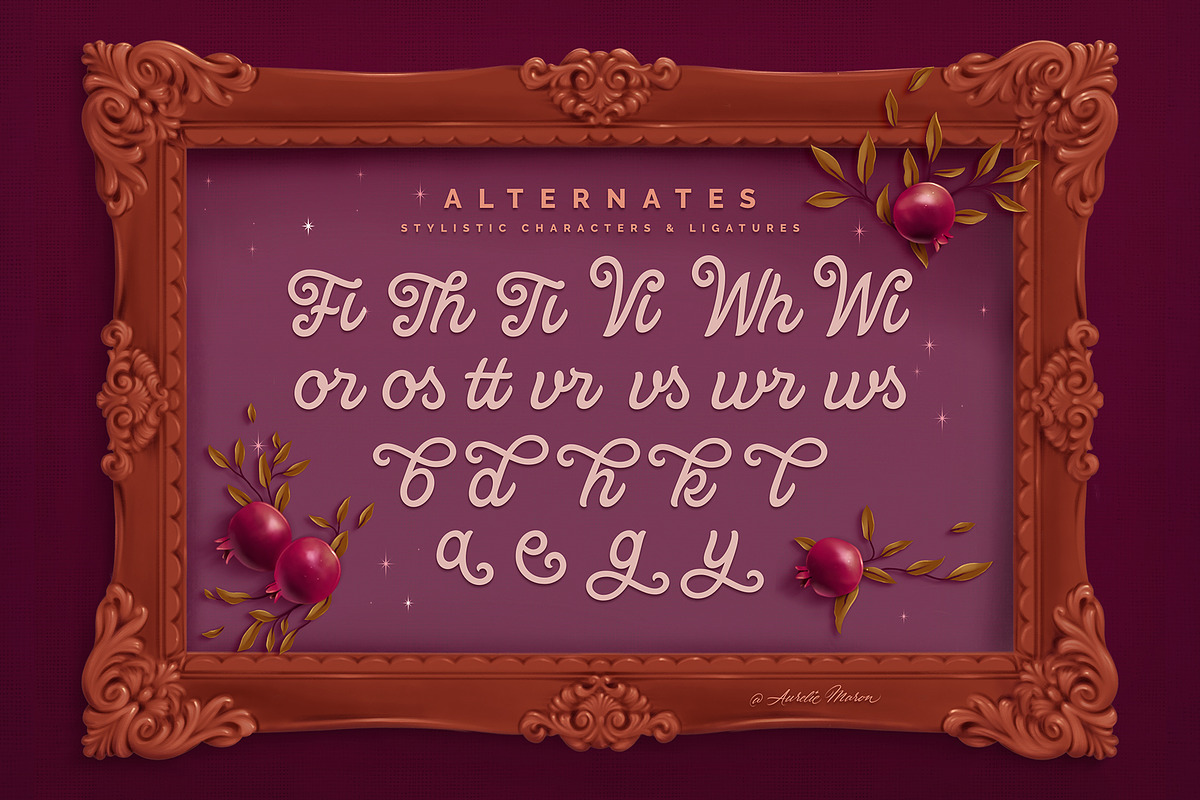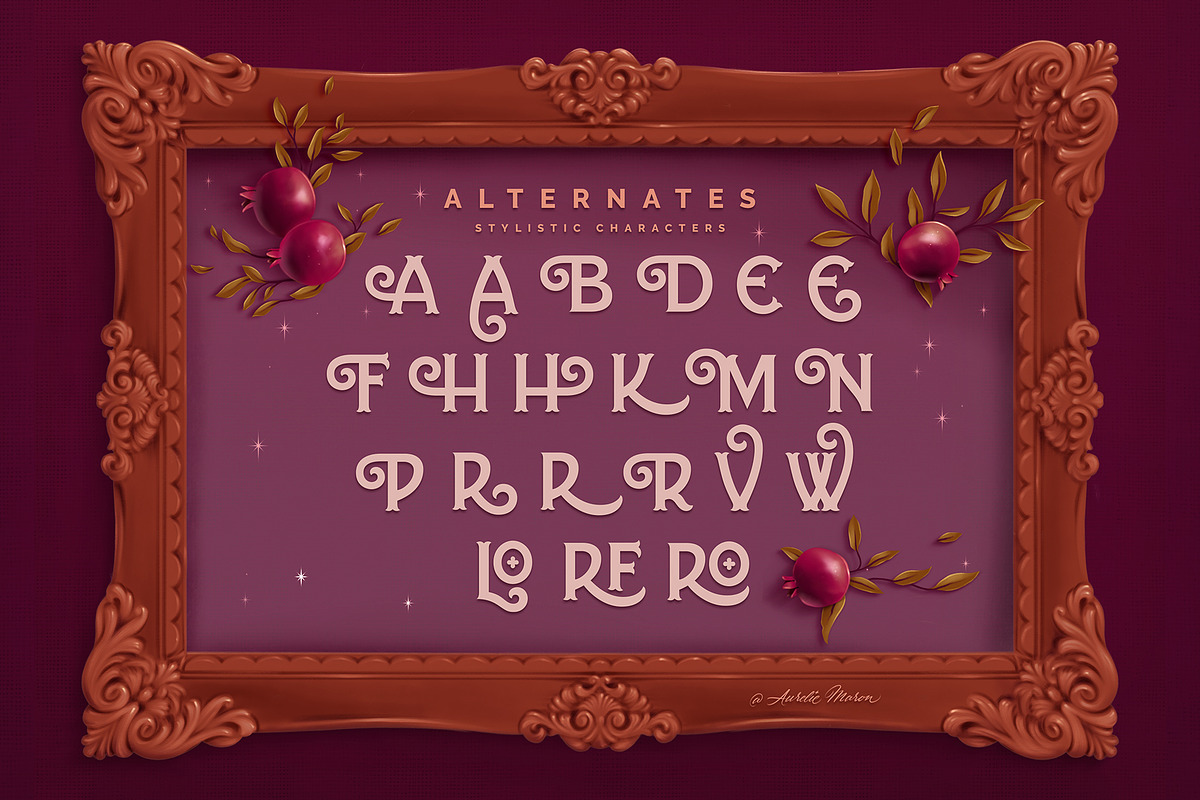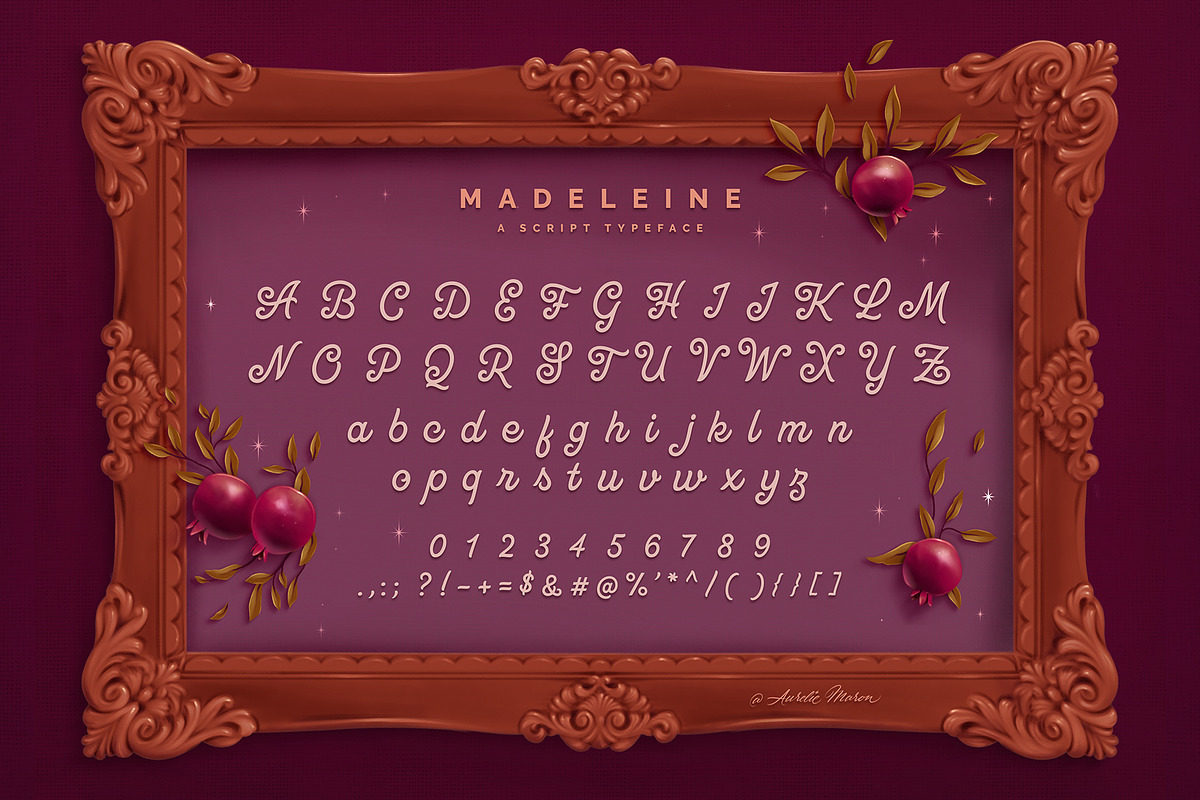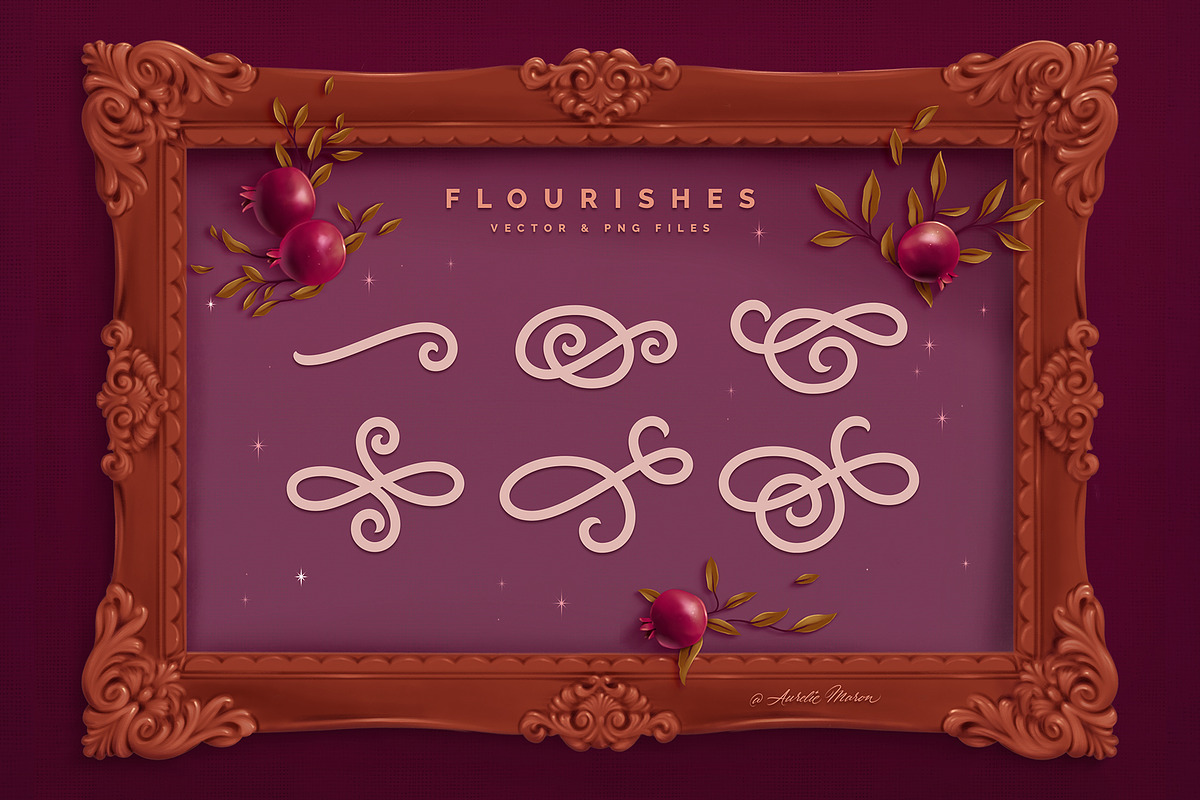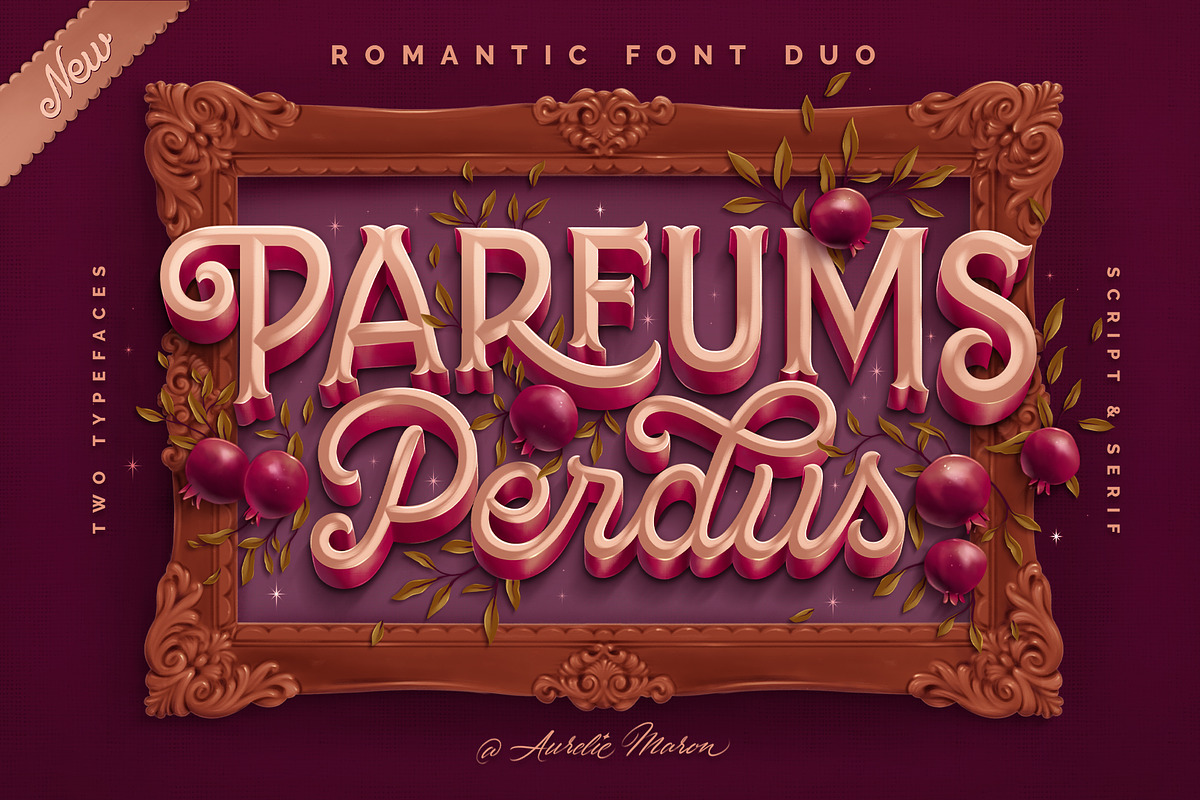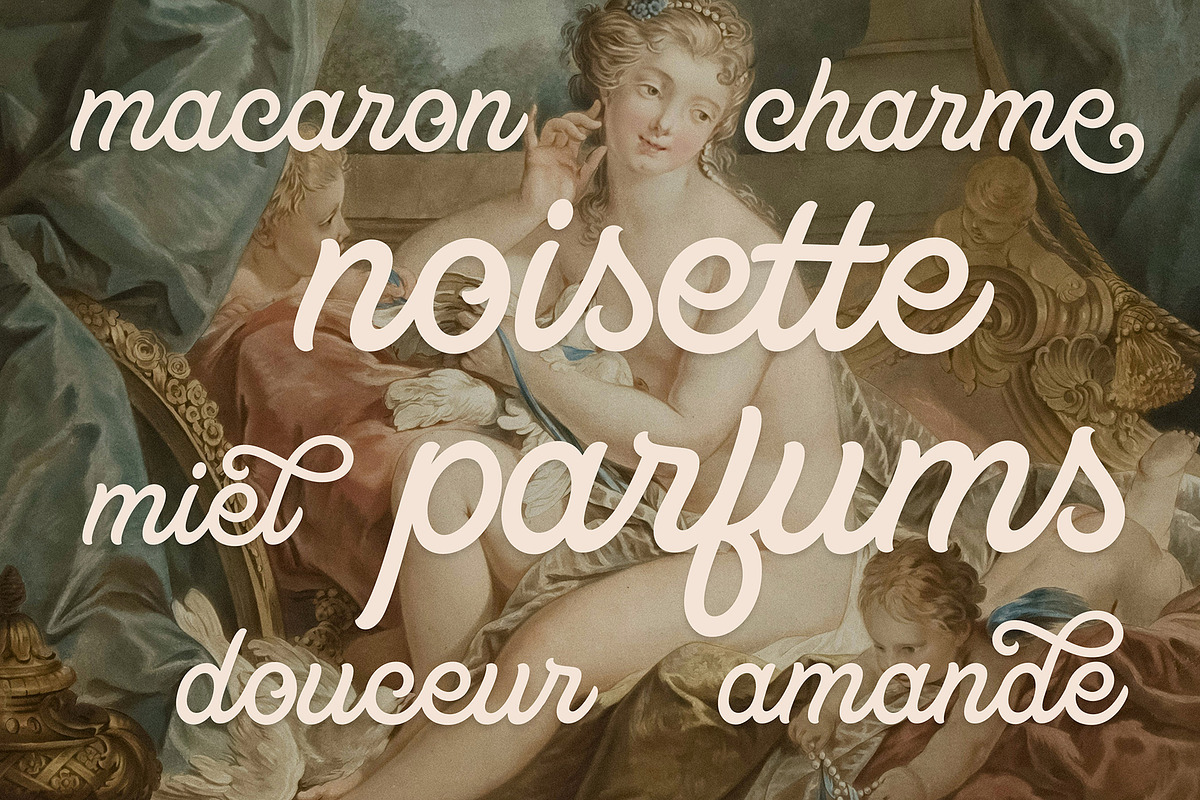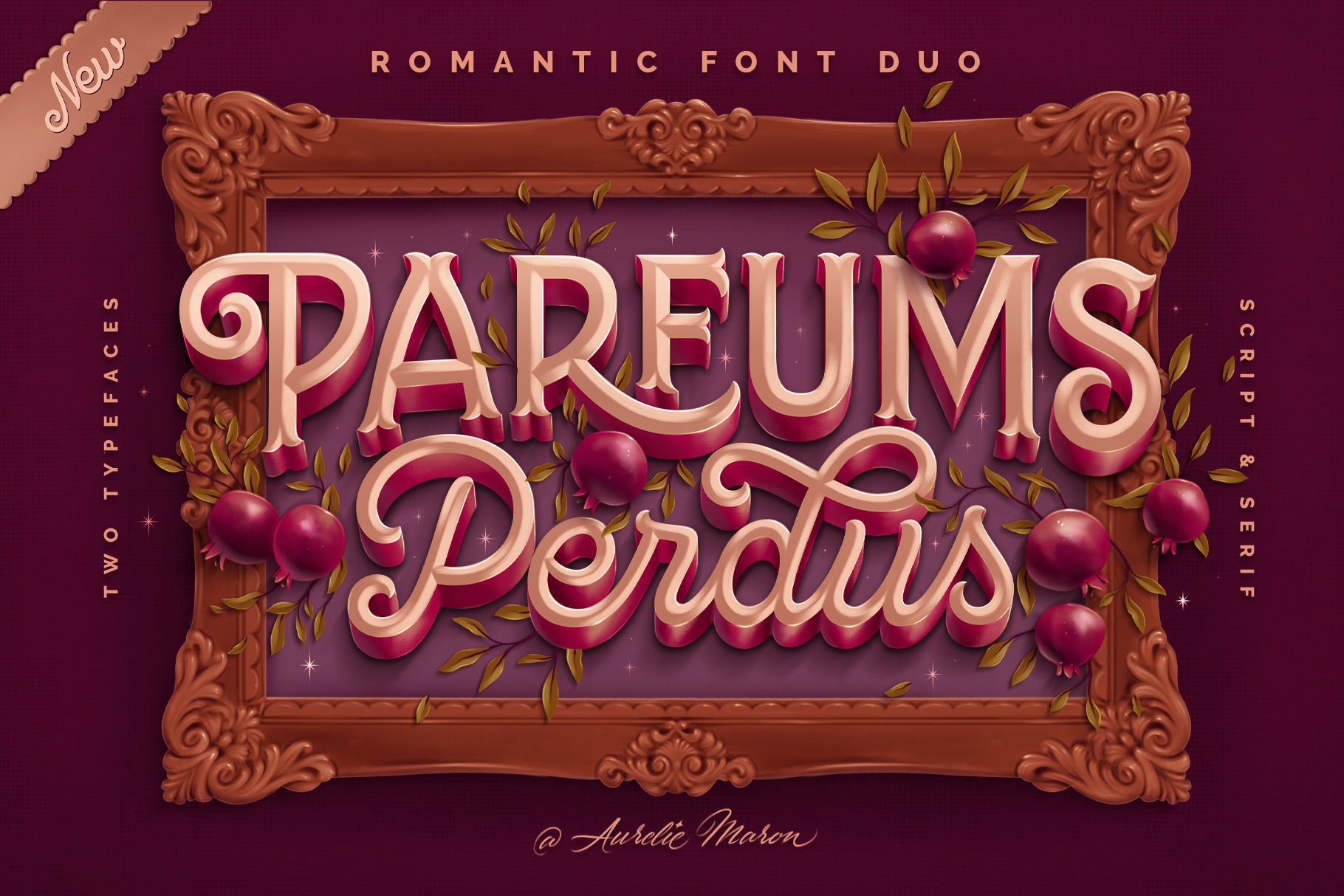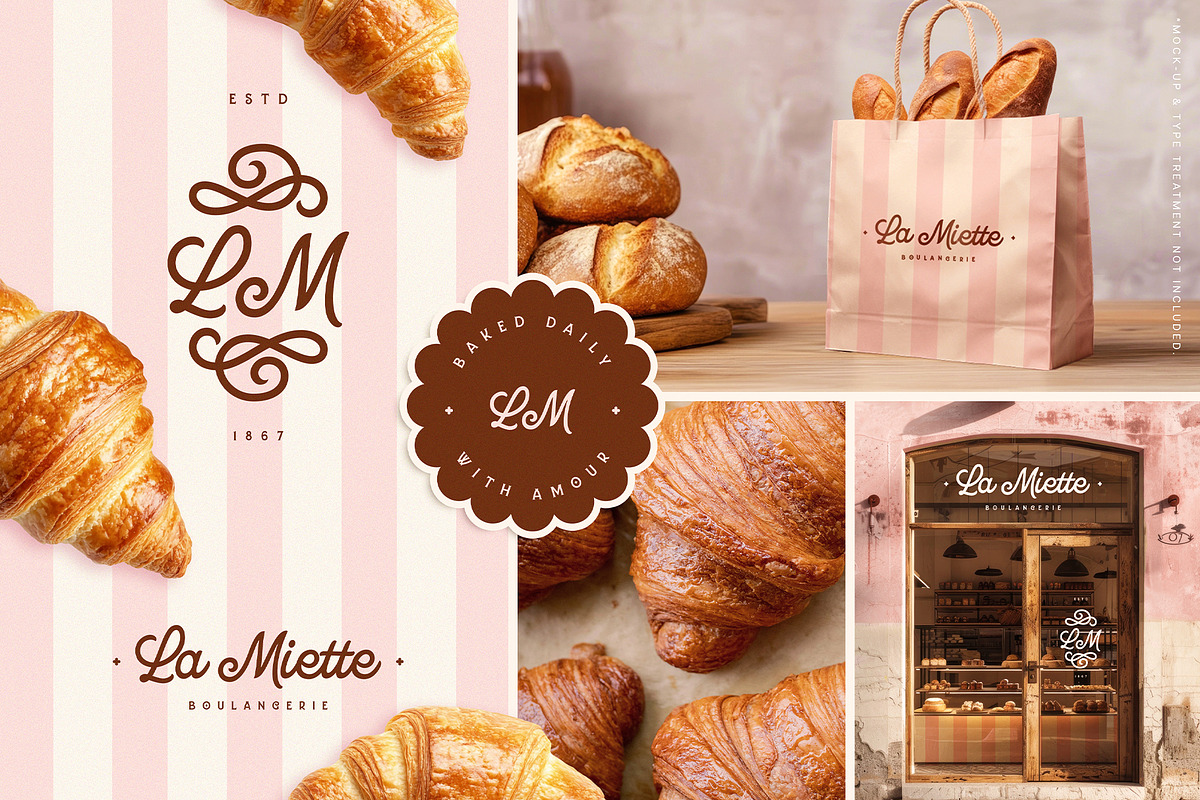
Parfums Perdus Romantic Font Duo
Designed to be worn like a fragrance 🍇🍂
Parfums Perdus is a retro-inspired font duo that blends bold serifs with flowing script, wrapped in a cloud of vintage romance. It’s made for designs that deserve to feel as elegant and unforgettable as a signature scent. Think branding, packaging, book covers, and more!
Whether you’re crafting a groovy logo or a whimsical quote, this typeface pack pairs nostalgic charm with modern versatility, giving your work a distinctly feminine, retro style.
With built-in alternates and ligatures, both Grenadine and Madeleine make it easy to customise your projects and create something truly one of a kind.
As if someone might lean in and ask, "What fragrance are you wearing?" this duo will have people asking, "Wait… what font is this?"